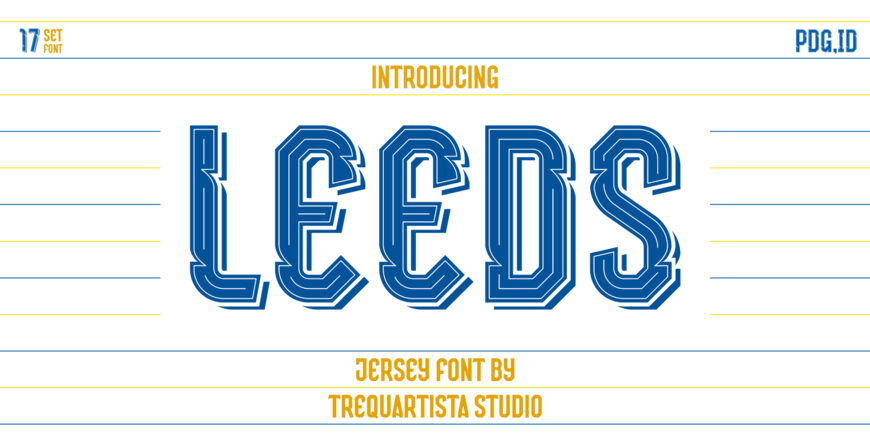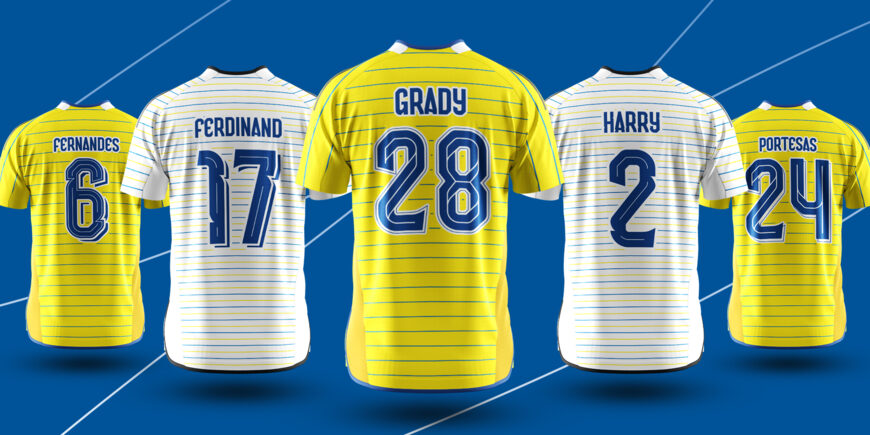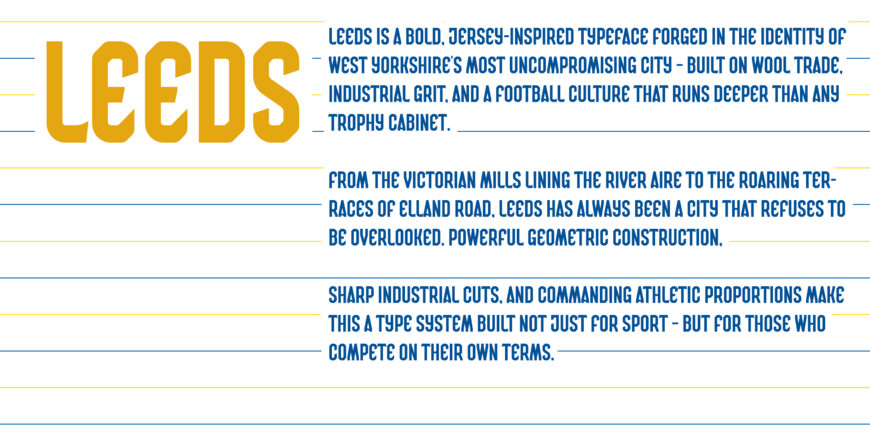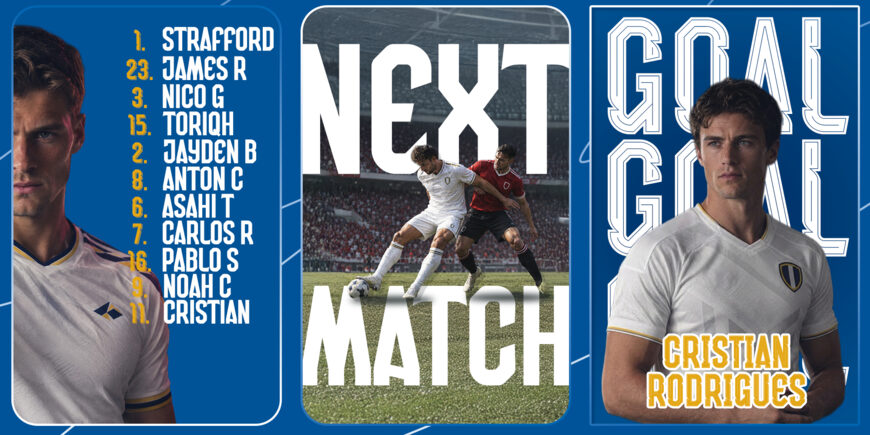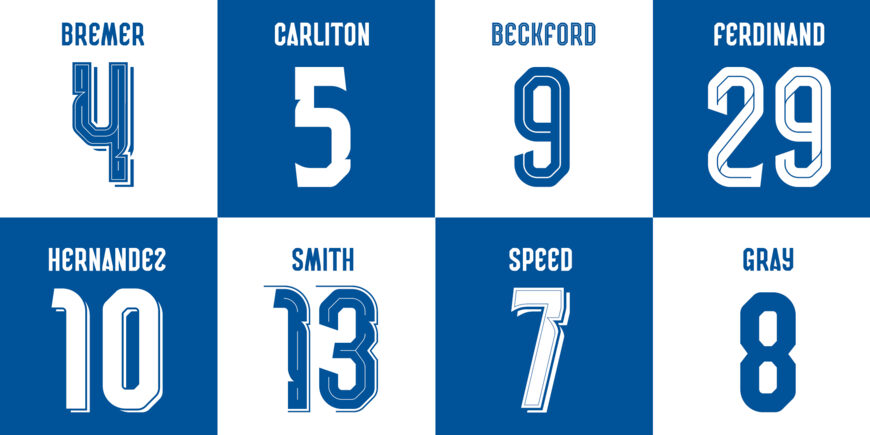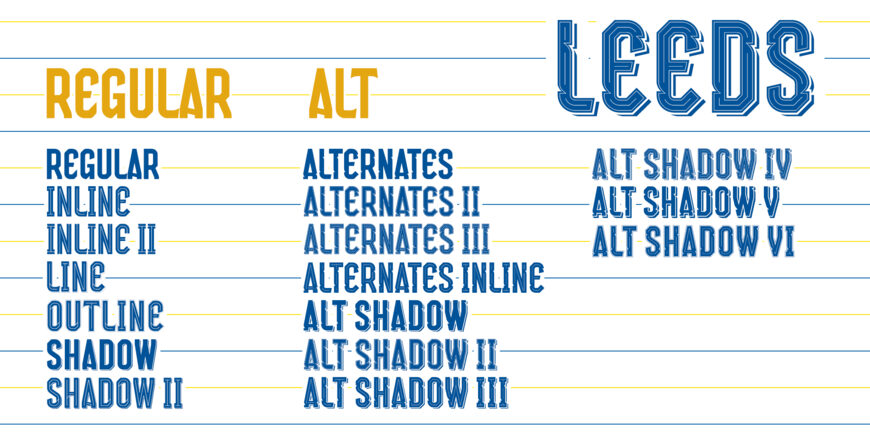
Leeds Font Family
Leeds is a bold, jersey-inspired typeface built on grit, heart, and working-class pride. Rooted in the spirit of English football, where the game is played in the rain, the mud, and the roar of the terraces, this font channels that raw northern energy through strong geometric forms, confident strokes, and commanding athletic proportions.
Designed to capture the atmosphere of floodlit Saturday nights, packed stands singing as one, and a club culture built on loyalty and relentless effort, every character in this family is made to stand out. From jersey names and squad numbers to club branding and bold display headlines, Leeds delivers a presence that refuses to back down.